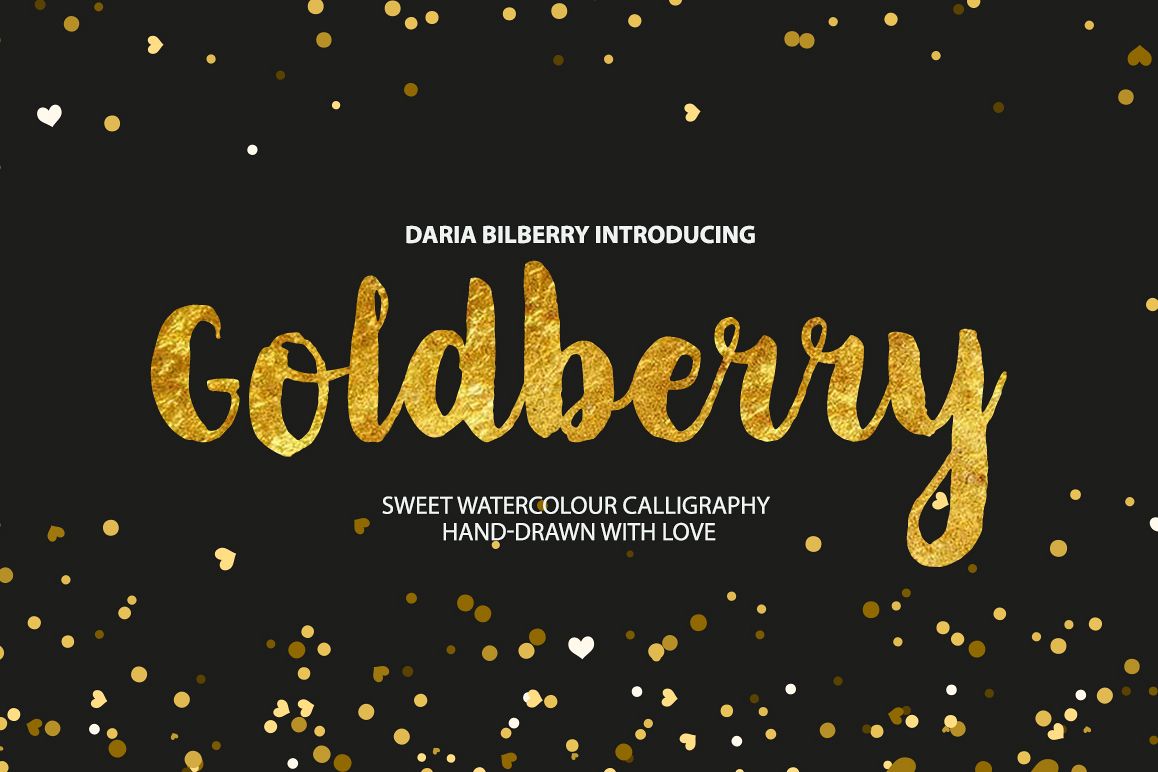
Goldberry
Introducing The Brand NEW Goldberry Font!
Sweet watercolour calligraphy hand-drawn with love:)
Perfect for : using in ink or watercolour based designs or on its own as bold hand-brushed lettering :) Use it for Branding, Logos, Greeting Cards, Stationery Design, Invitations, T-shirts, Apparel, Packaging designs, Poster, Typographic Design, and so much more!
Goldberry